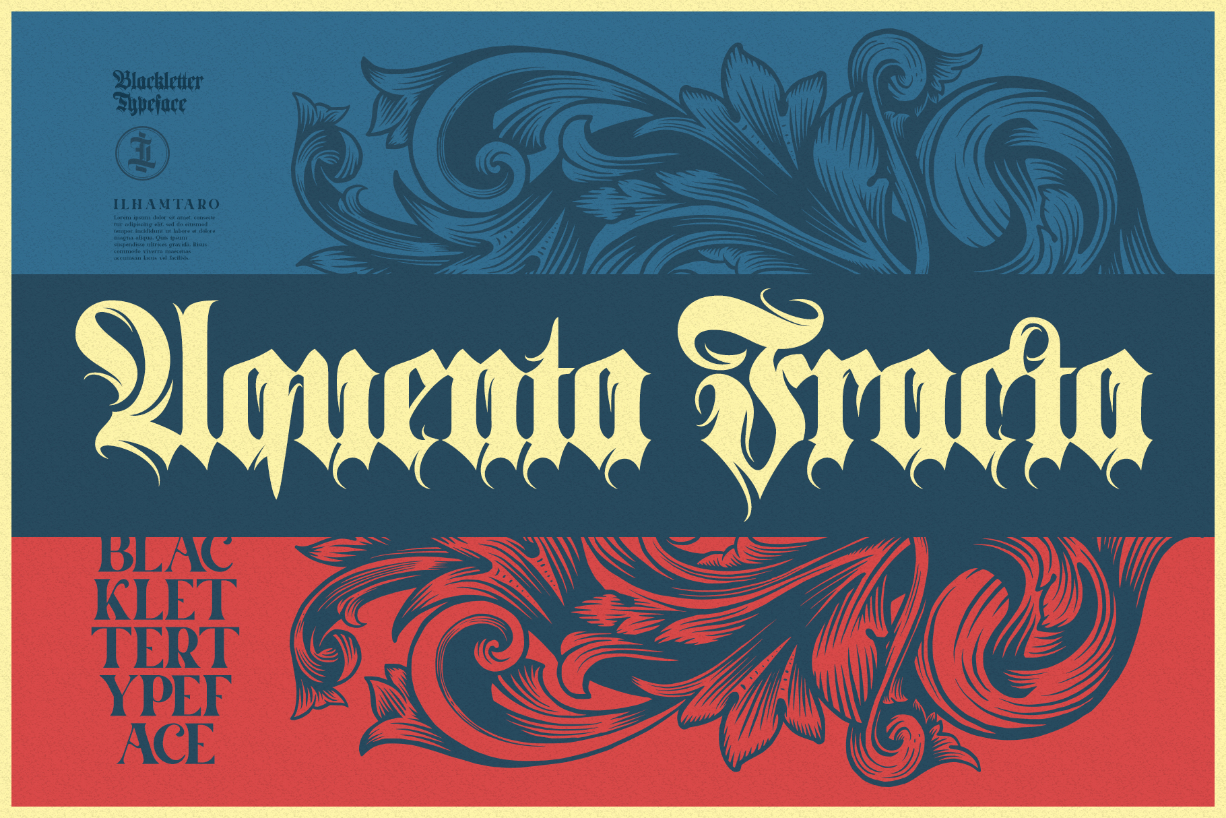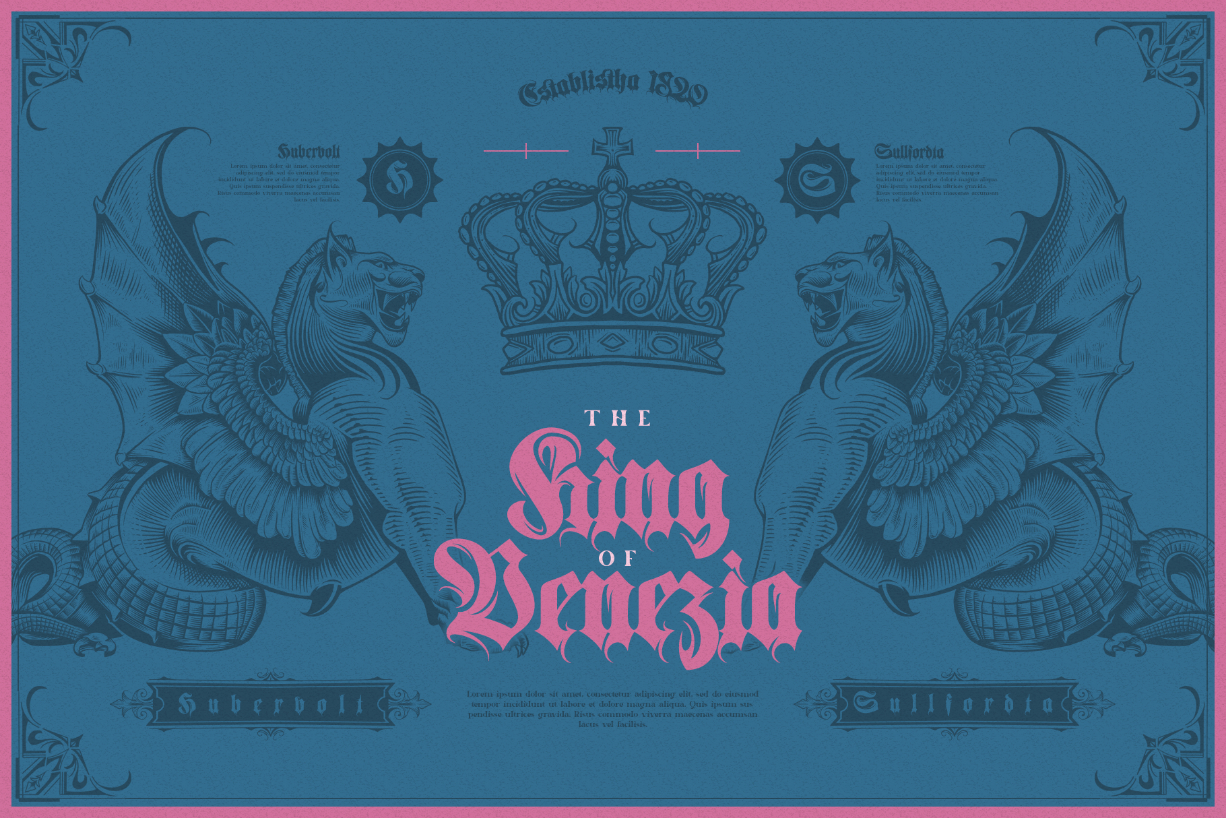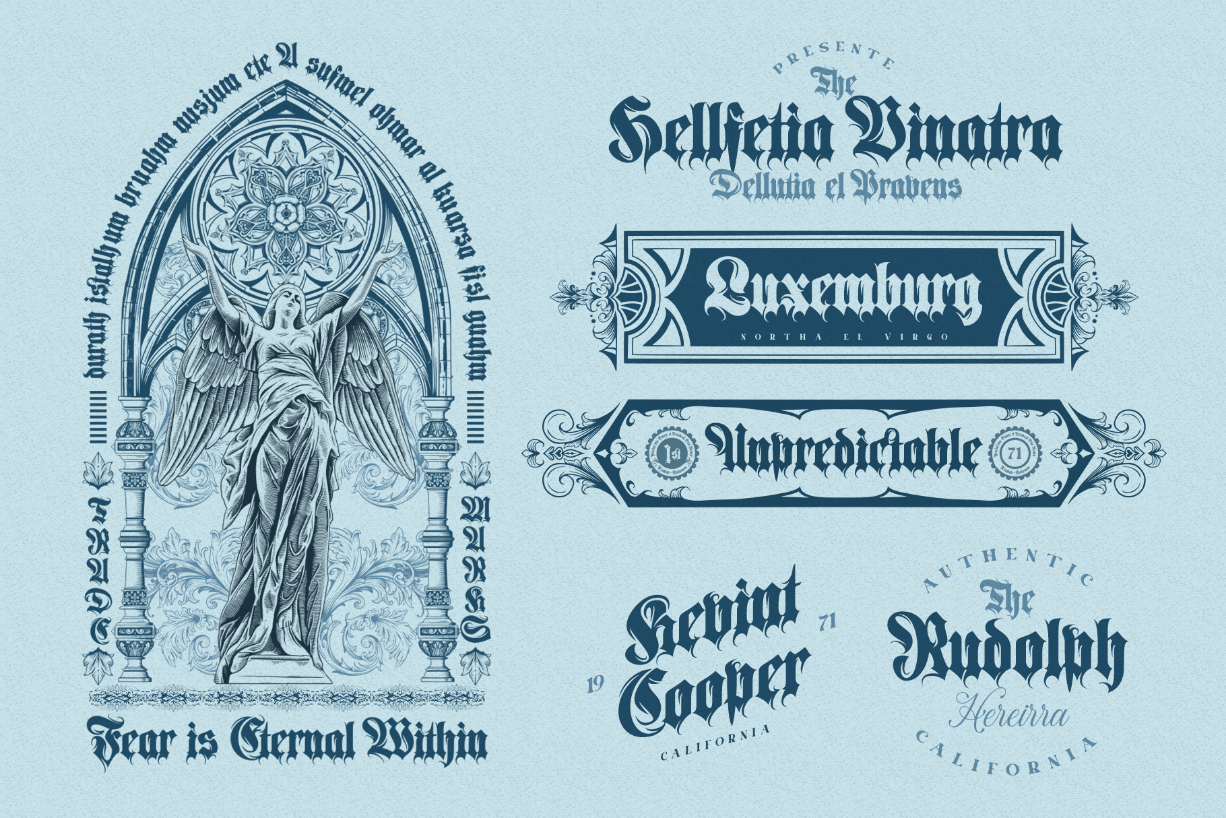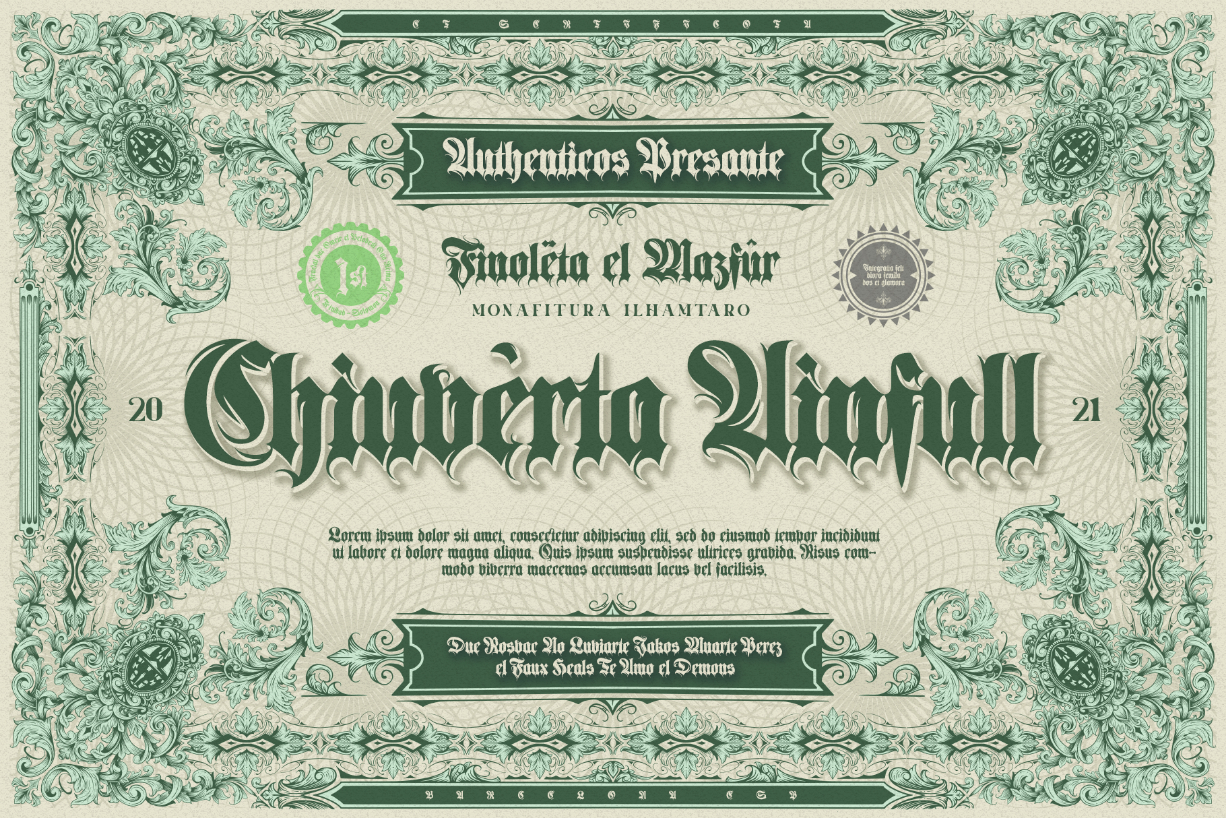
About Aquenta Fracta Font
Aquenta Fracta is a cool, assertive and distinct blackletter font, that’s great for delivering any message with confidence, authenticity and charm. It will elevate a wide range of crafting ideas, from cards, to branding, labels and much more.